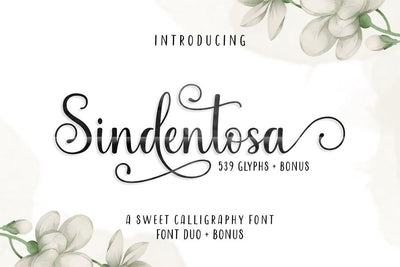
Sindentosa Font Duo & Bonus
introducing our latest font called 'Sindentosa Font Duo', this is a duo font with a very harmonious combination and can complement each other.
with curvature swashes that make the design look dancing, smooth, elegant and clean. perfect for weddings, events, invitations, escort cards, table numbers, header menus, displays, logos, blog sliders, custom addresses, stamps, packaging, greeting cards, etc.